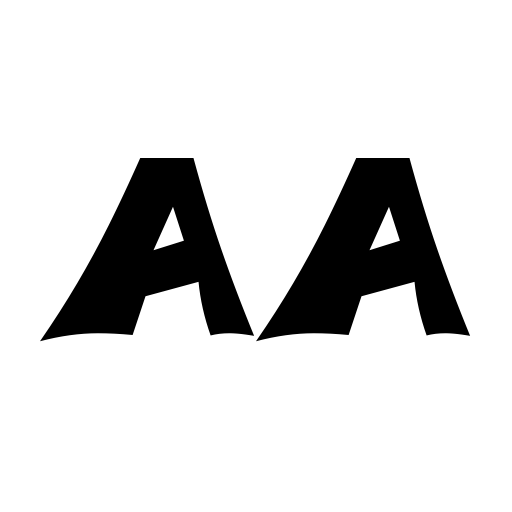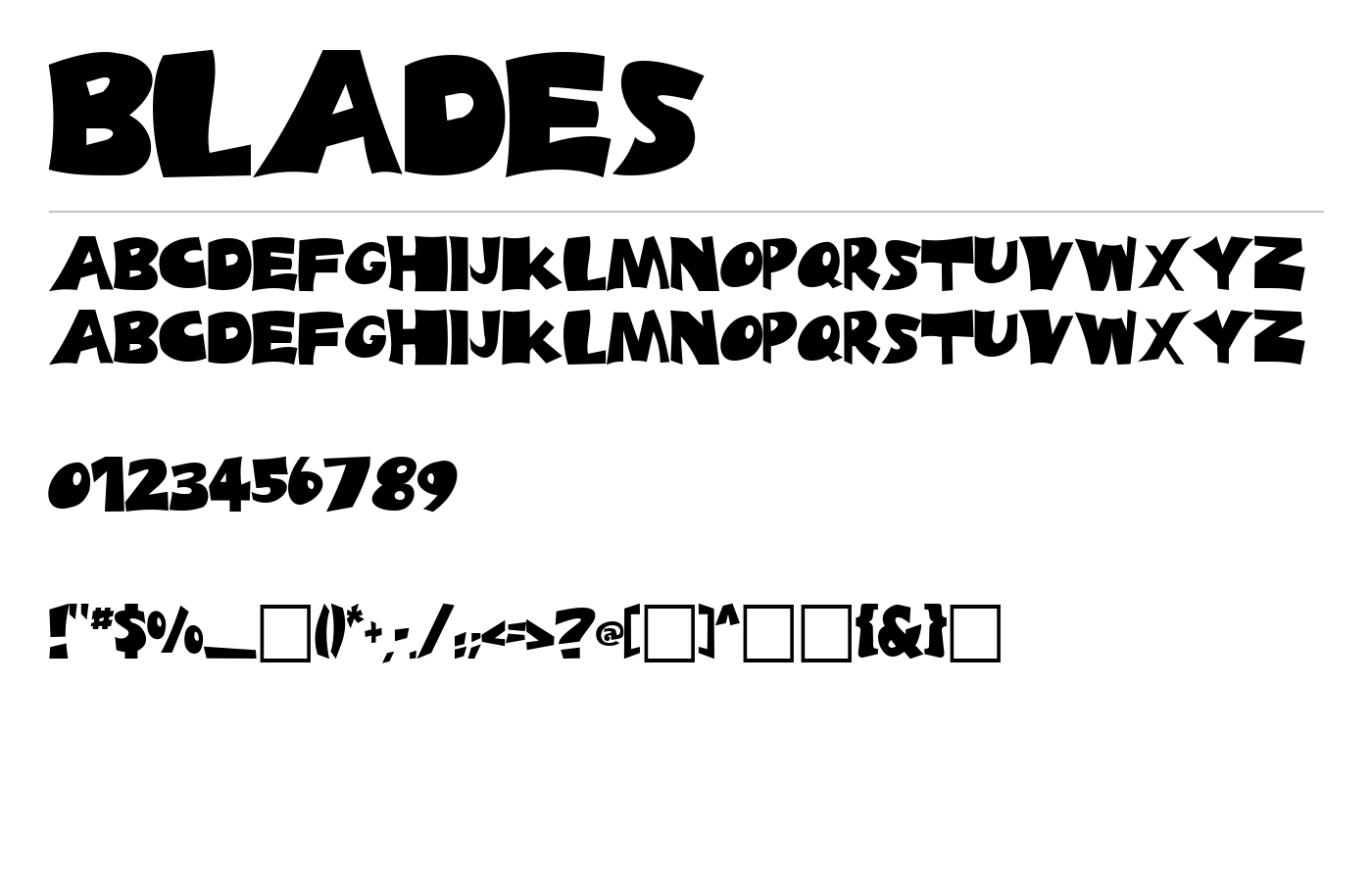
Blades is a bold, playful sans serif font with chunky, irregular letterforms that give it a lively and fun character. Its uneven shapes and strong presence make it ideal for attention-grabbing headlines, logos, and designs aimed at a youthful or casual audience. This font works great in creative projects where a lighthearted and energetic mood is desired.
Blades Font
About Blades Font